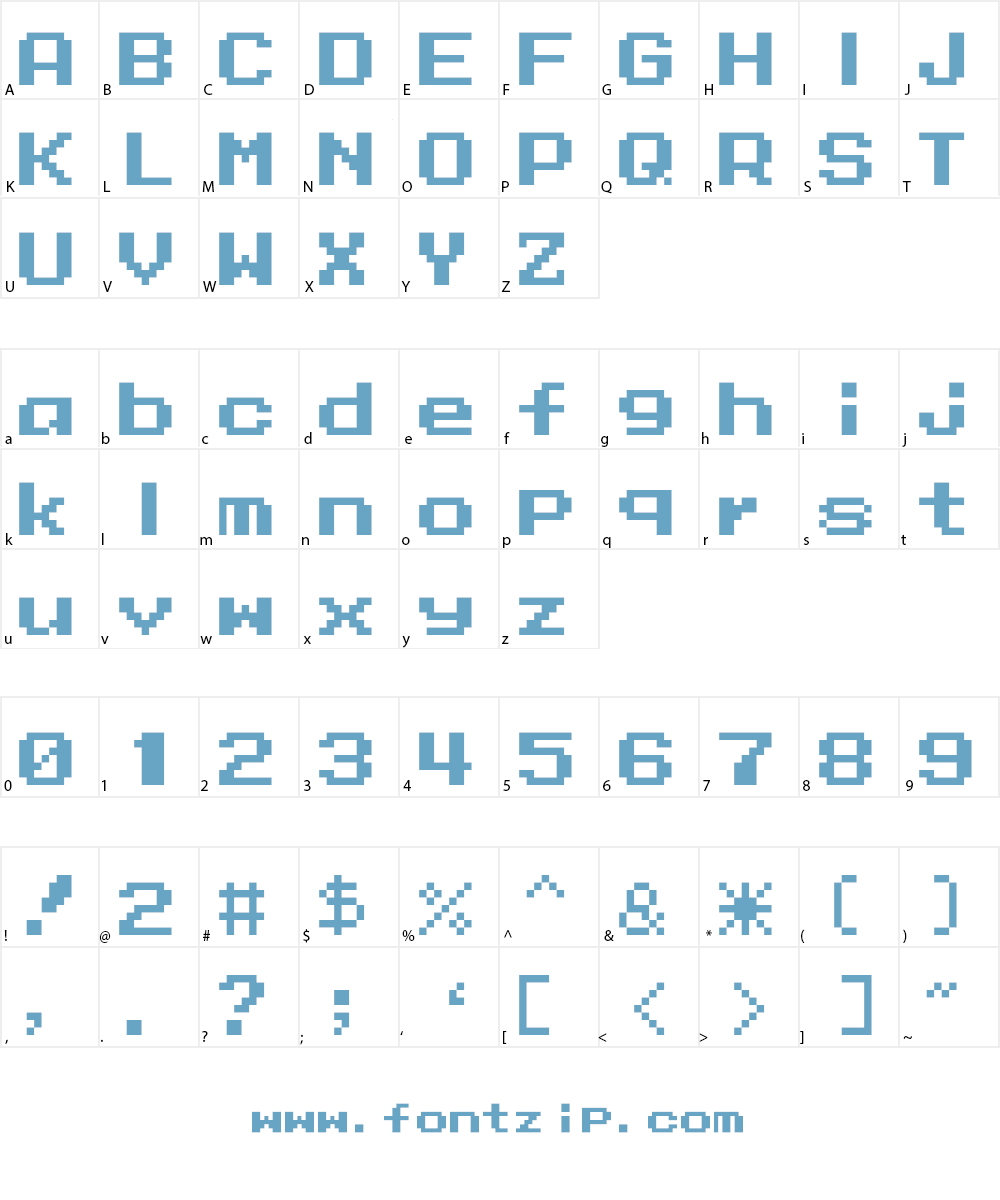
This is a pixel font that is used in the in-game screens and cutscenes in Mega Man 10. Includes full alphabet, extended characters, Japanese characters (Hiragana and Katakana) more punctuation, and Euro. There are also some alternates for a specific character. Made with FontStruct.